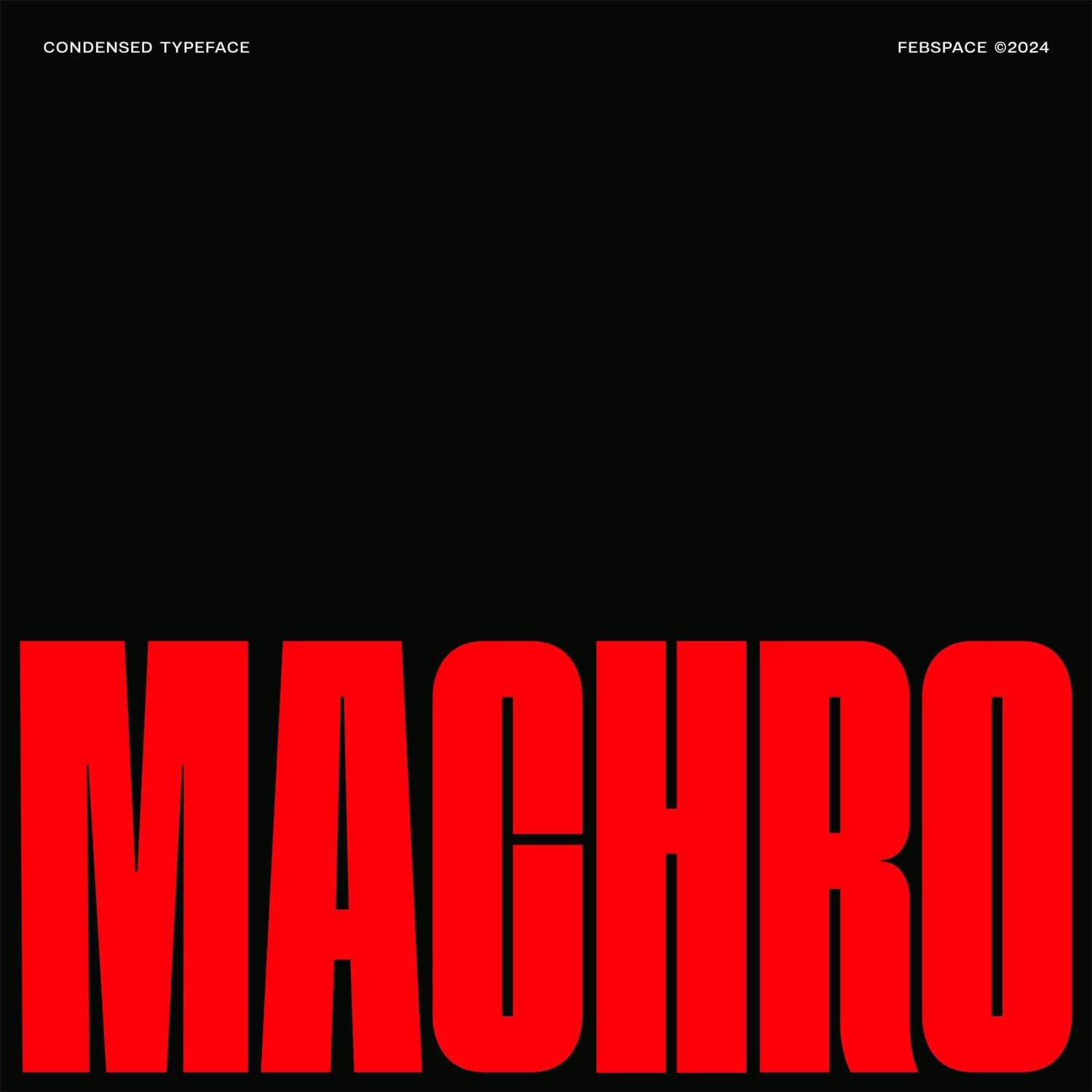
<p><strong>FBS Machro *<em>is a modern Condensed font designed to convey strength and dynamism. Featuring boldcharacters, this typeface is perfect for highlighting key design elements in both print and digital media. Available in two styles : Regular and <em>Slanted</em>, *</em>FBS Machro</strong> <strong>Condensed</strong> offers versatility in application.<br> <br>The Regular style is ideal for body text and headlines, while the Slanted style adds an energetic and dynamic flair, making it perfect for grabbing attention. With its narrow proportions and clear details, this font is not only highly legible but also infuses a contemporary elegance into any project. Whether for branding, posters, or other graphic designs, <strong>FBS Machro Condensed</strong> is the ideal choice for creating a professional and captivating look. </p>